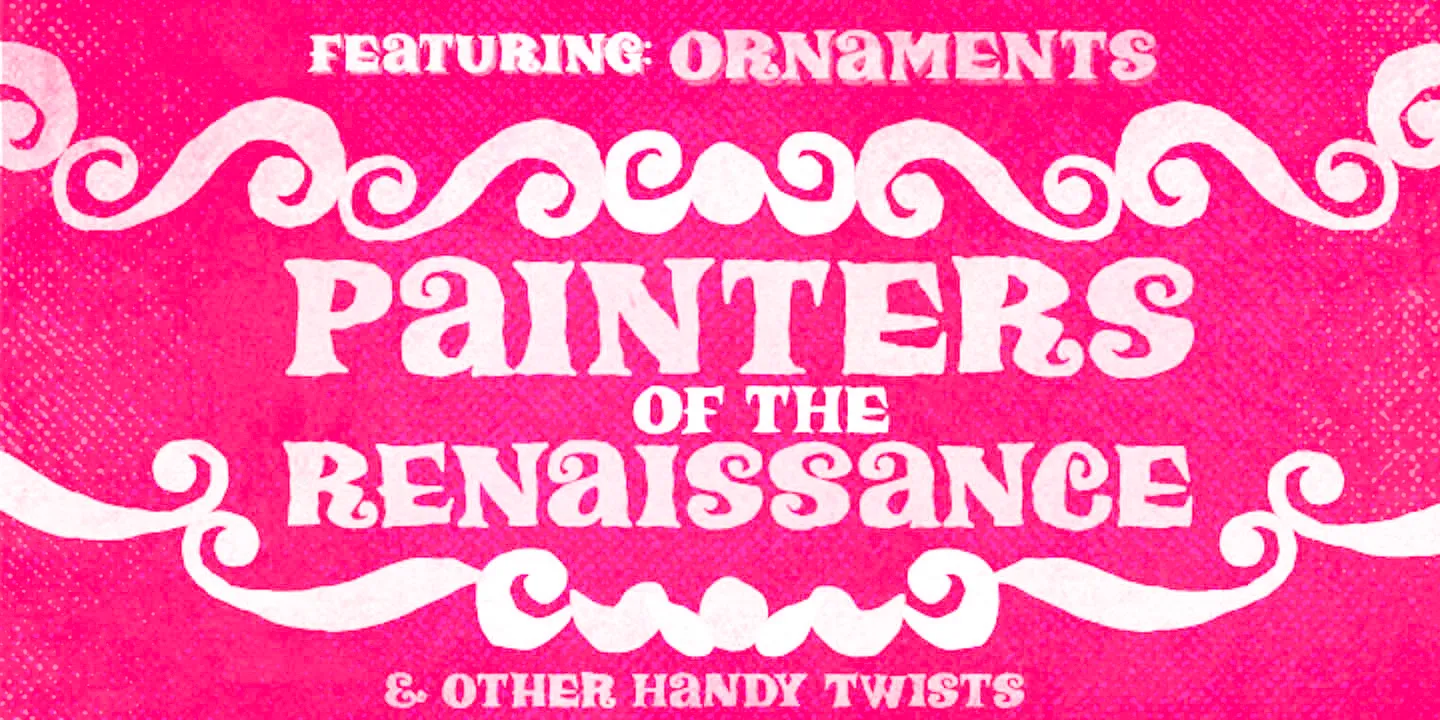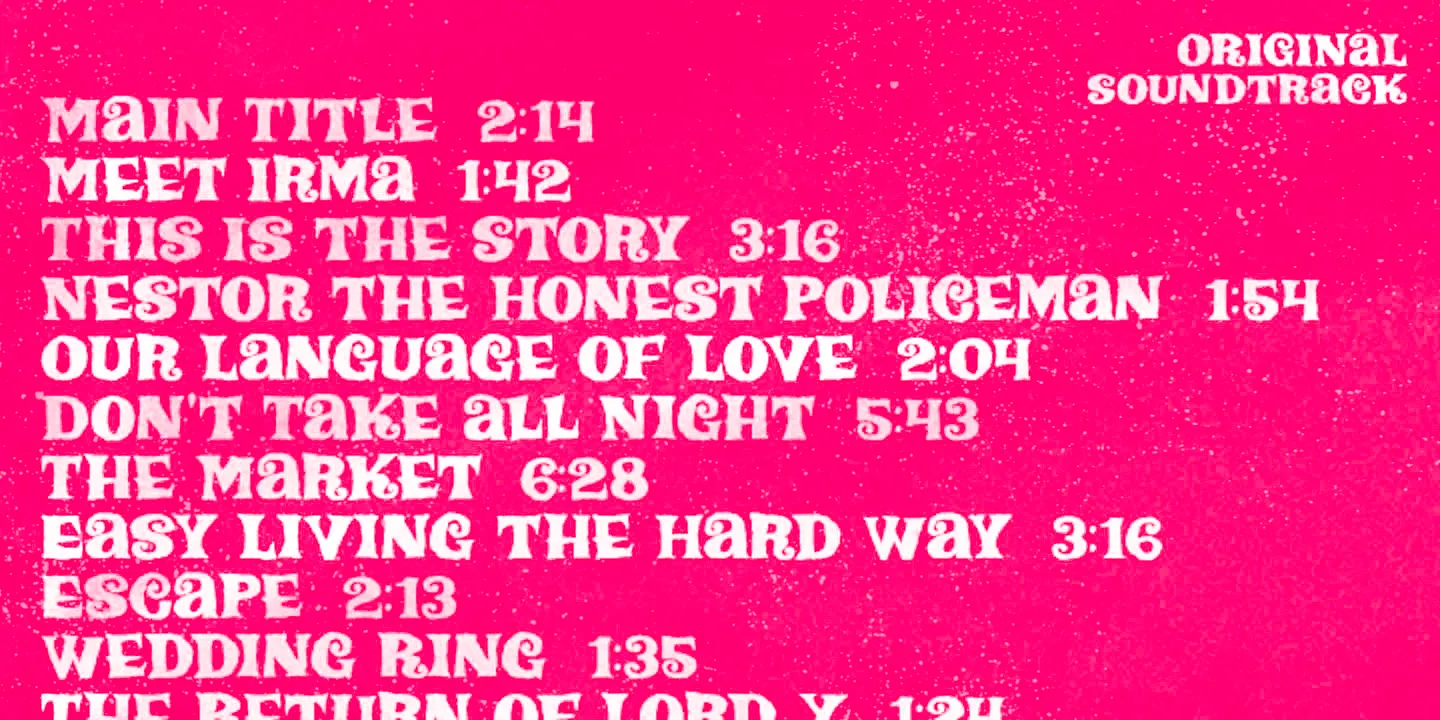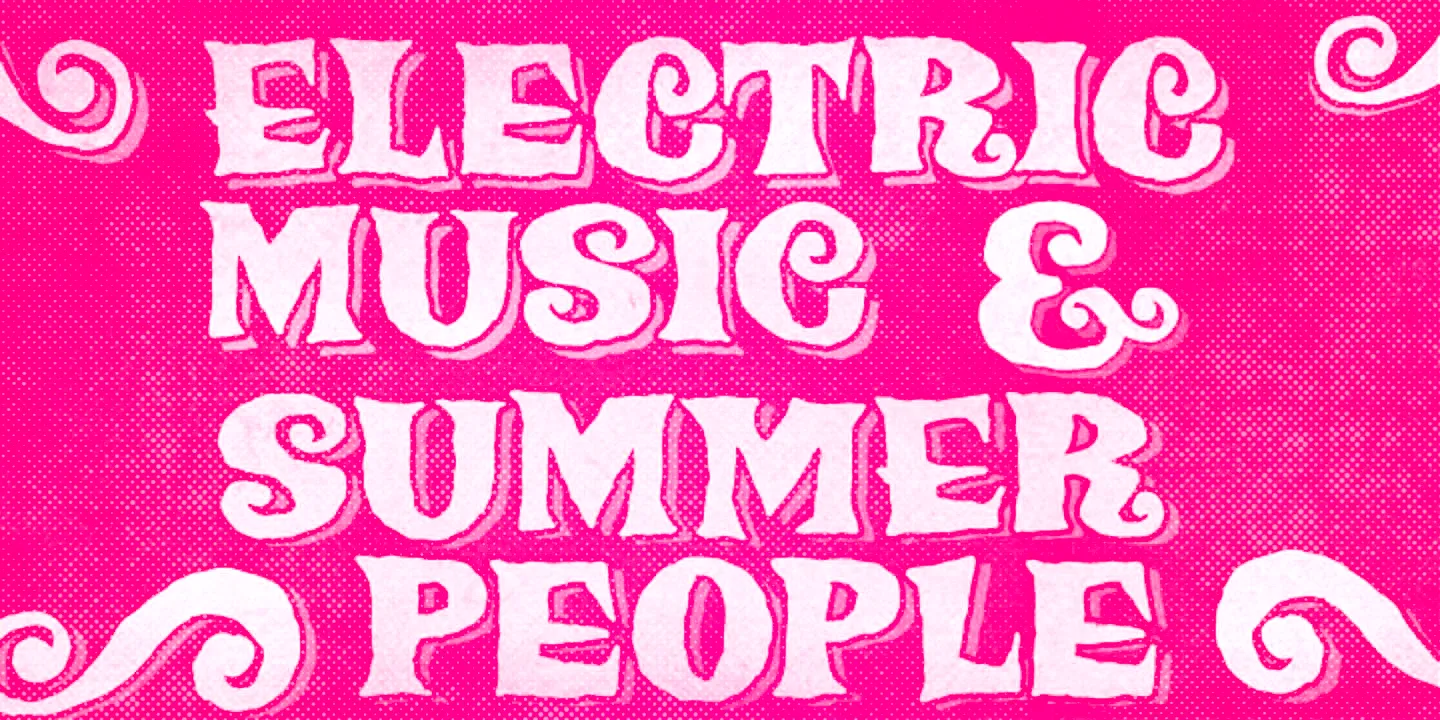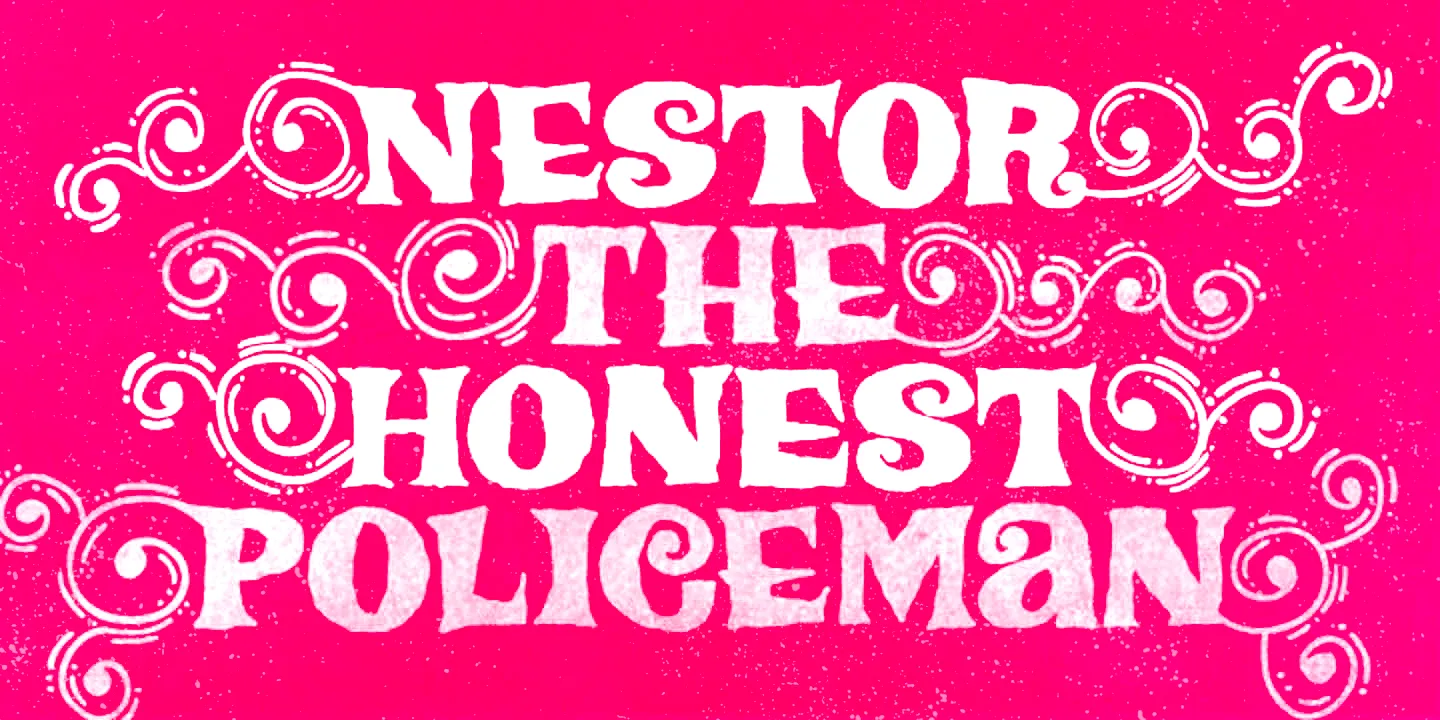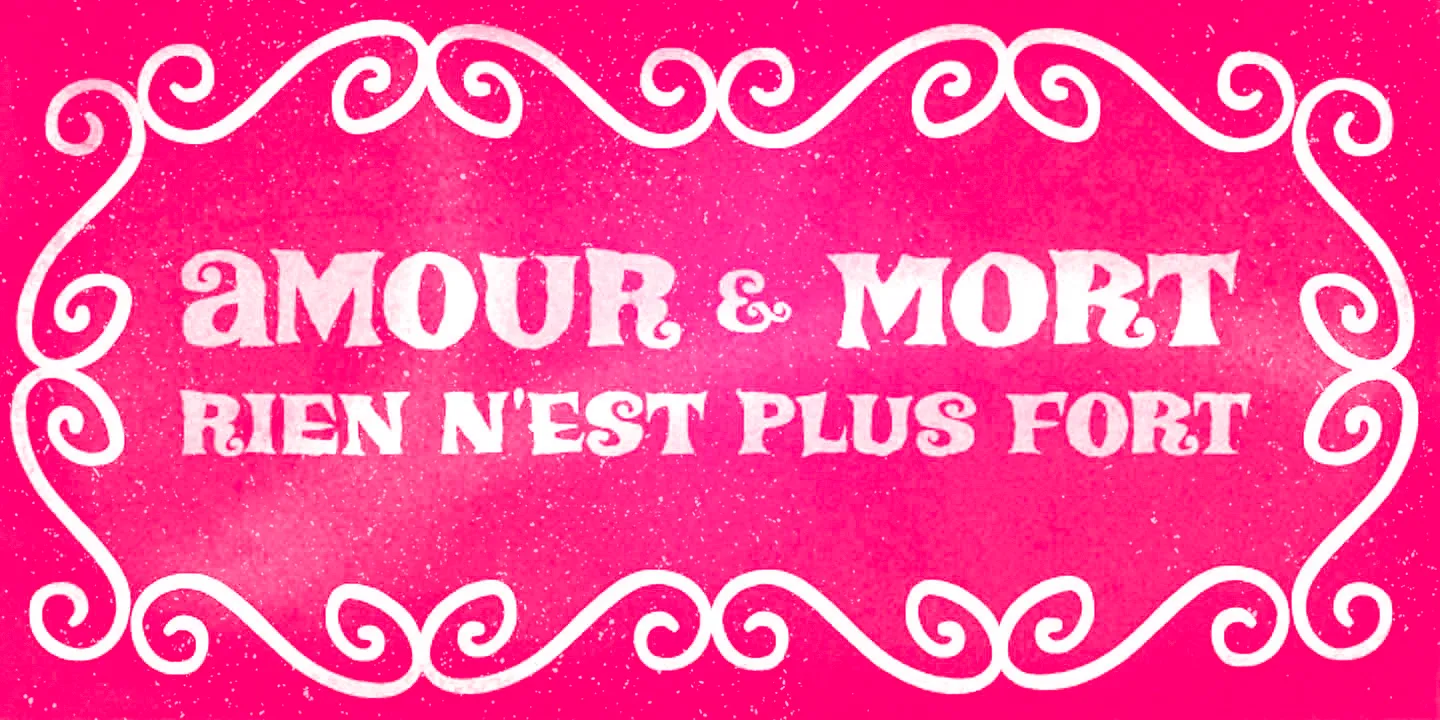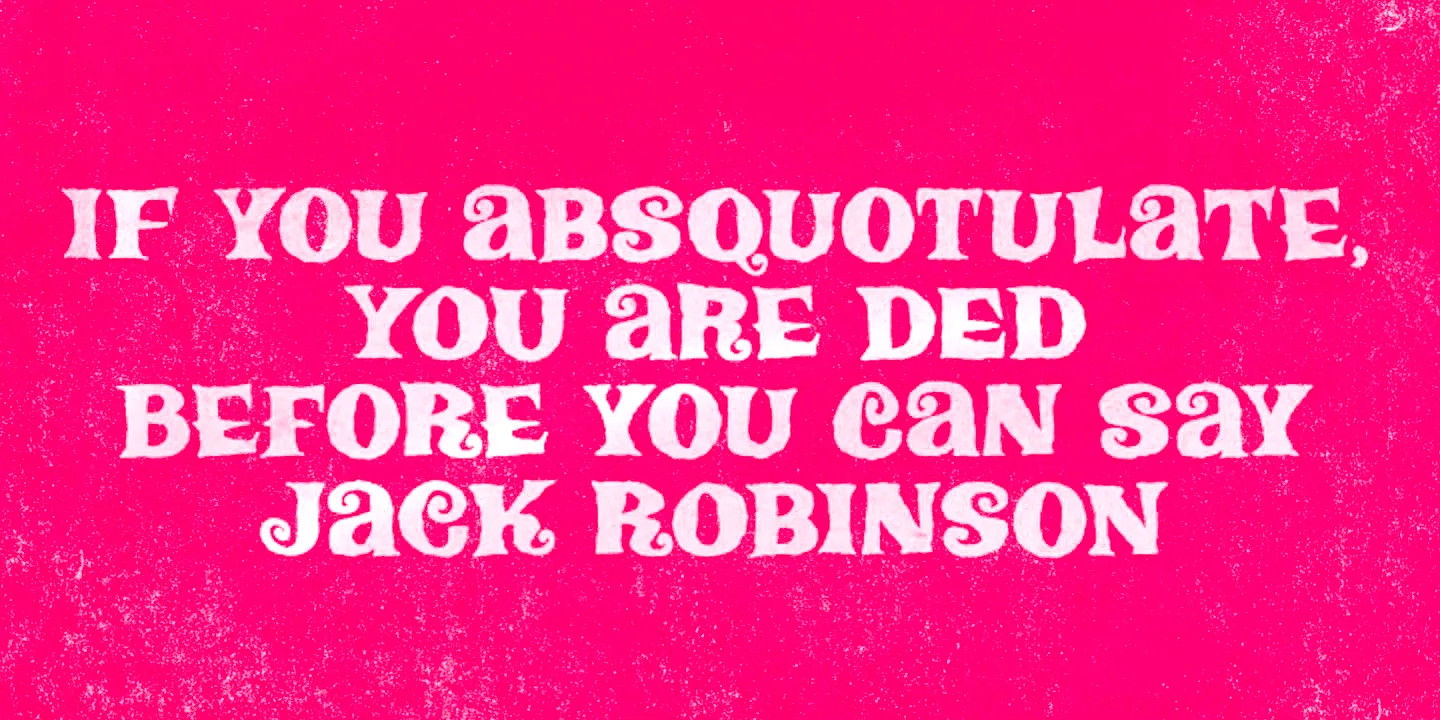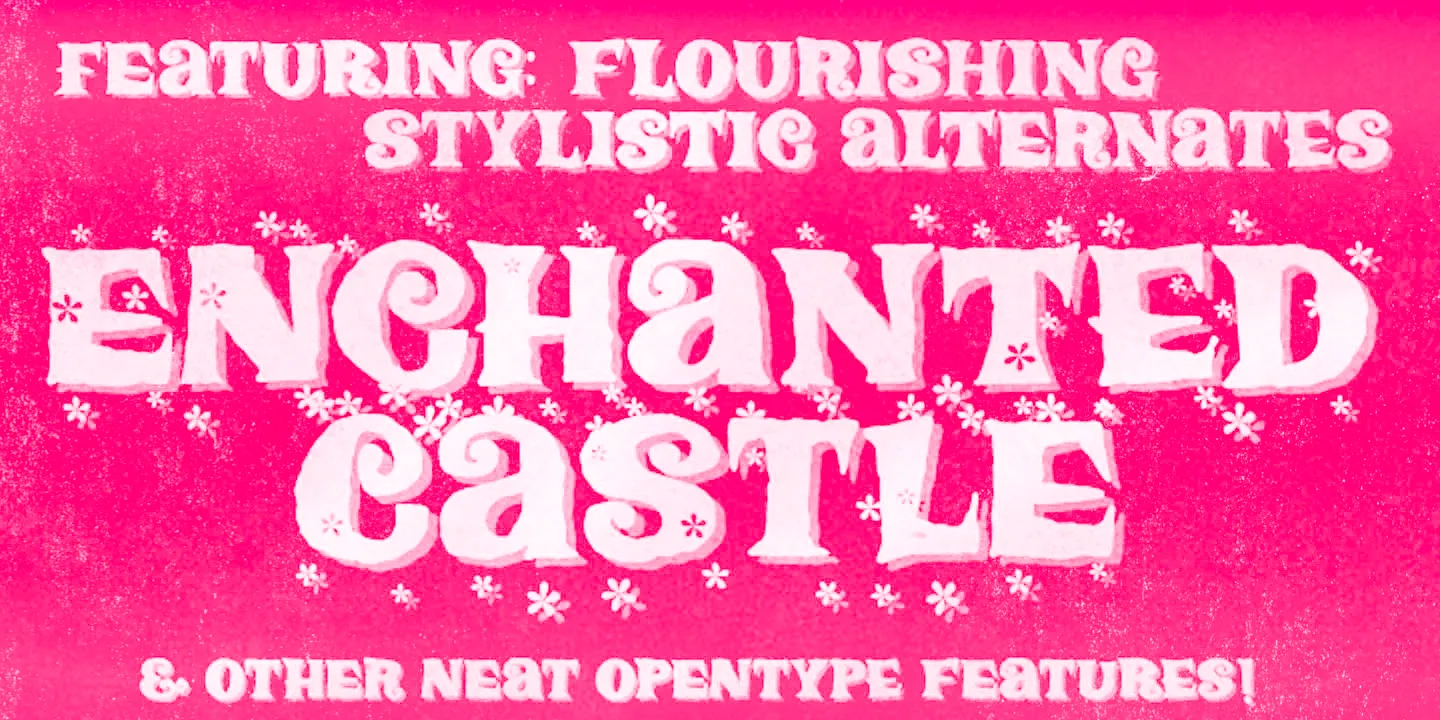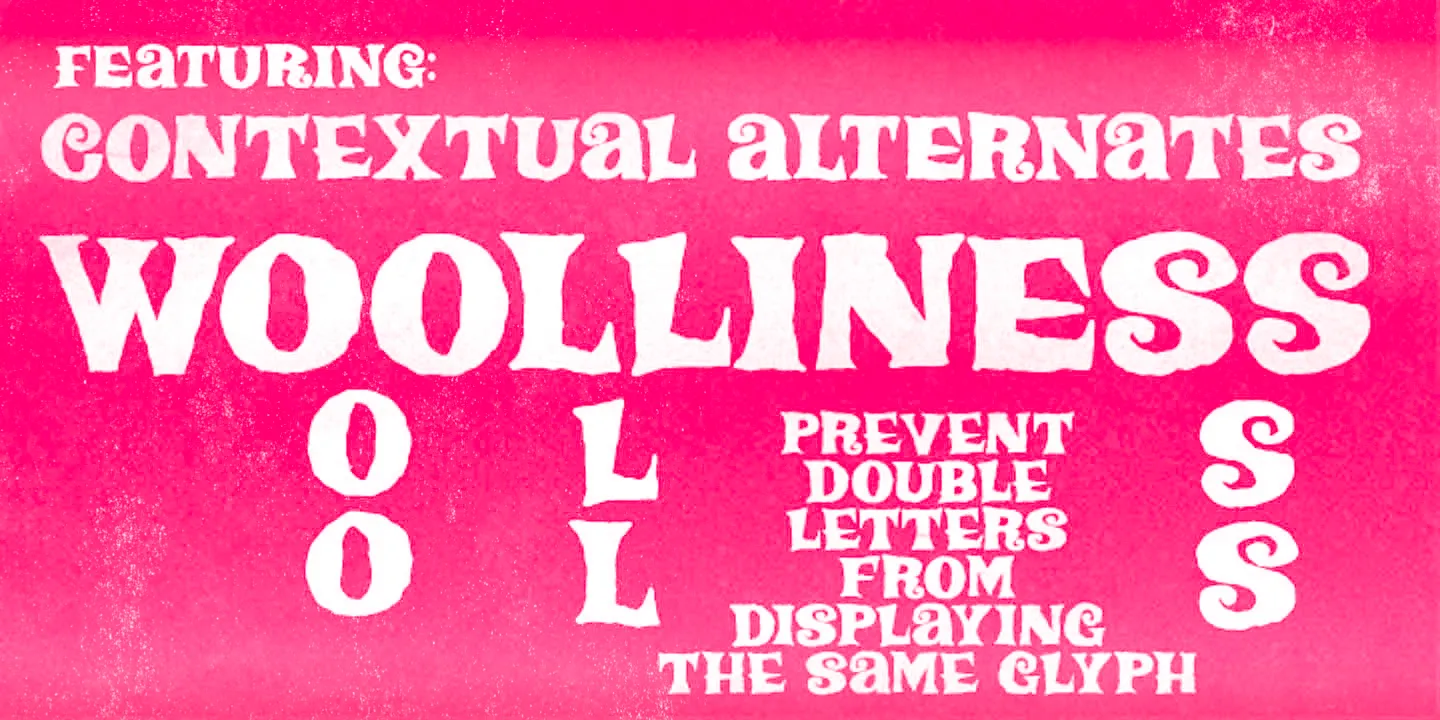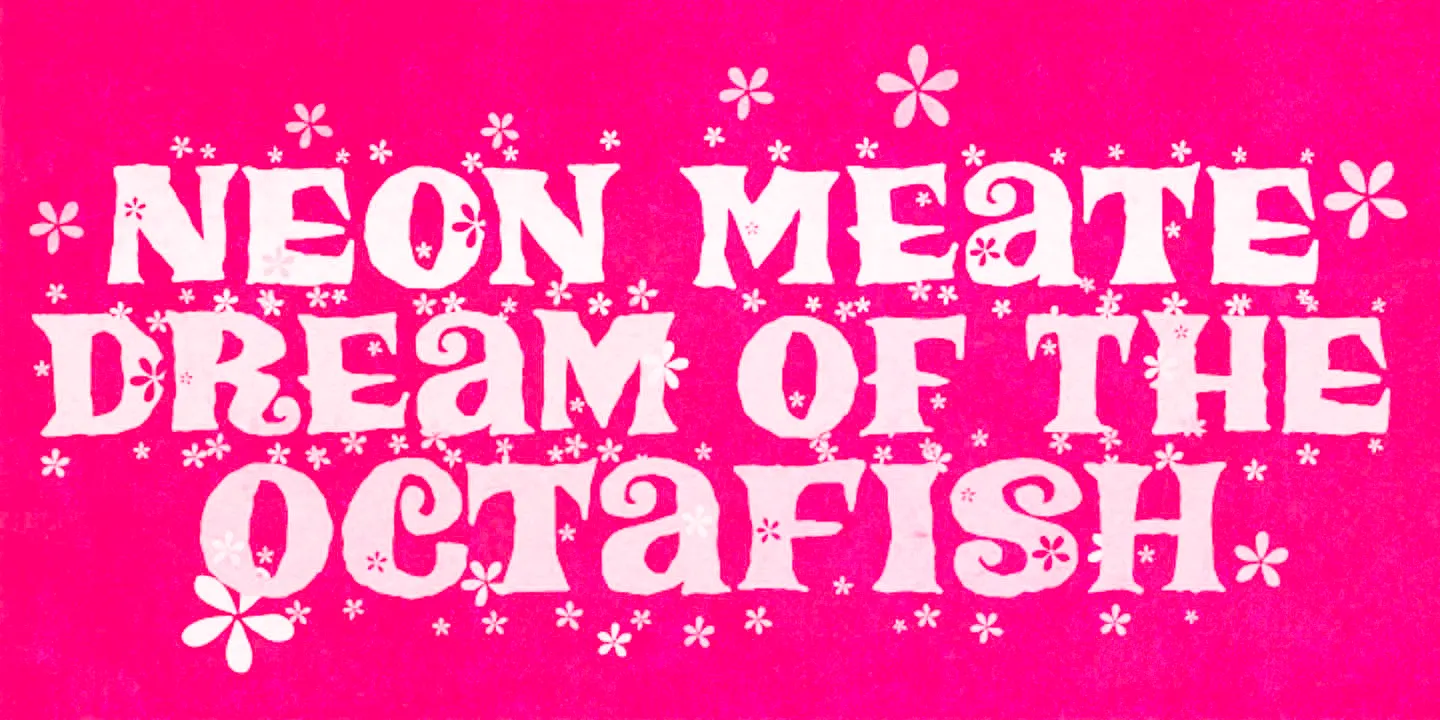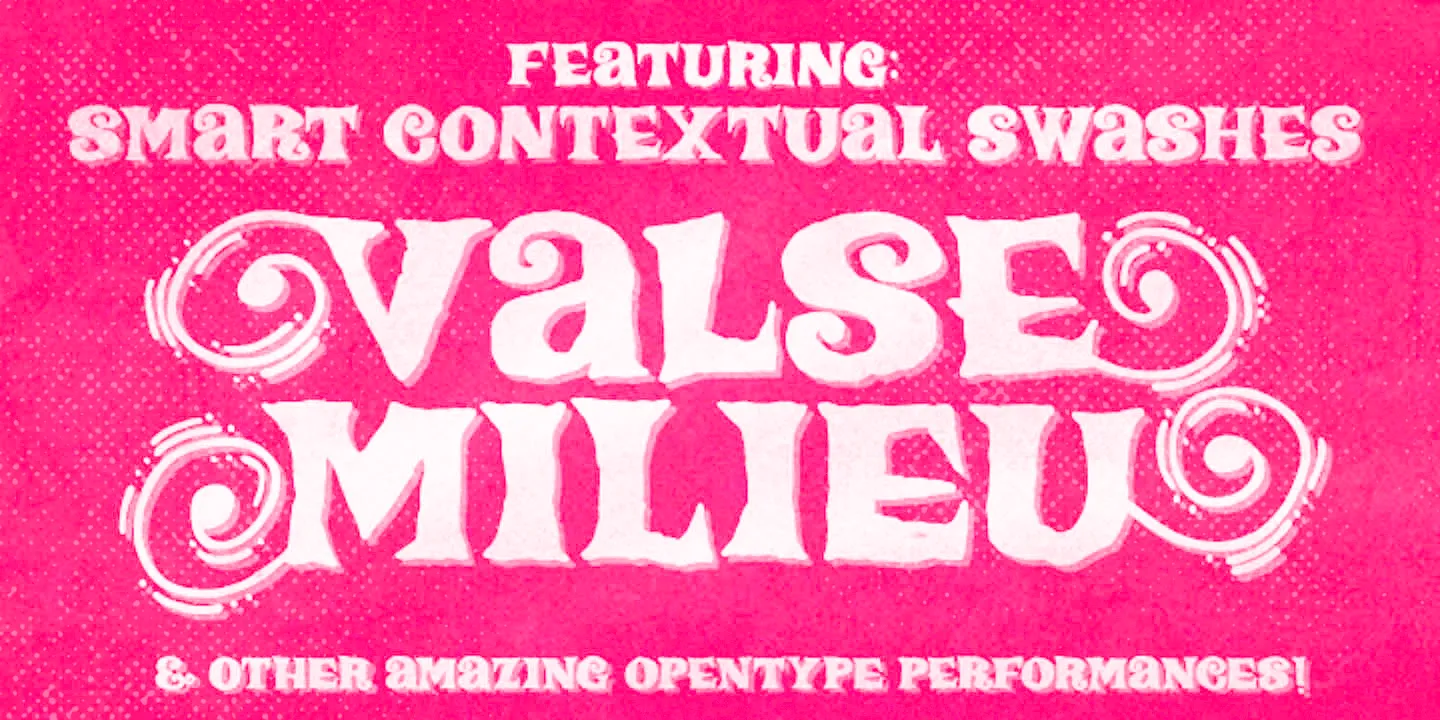
Chez Moustache Font
Chez Moustache
Chez Moustache is a unicase display typeface inspired by the film titles of Irma La Douce. It features two versions of each letter to avoid repetition and keep text playful. Plus! A set of stylistic alternates to add floral flourishes. Whether you’re designing a show poster, boutique label, or anything that needs a theatrical twist, Chez Moustache brings flair with a wink.
• Ornaments
• Swashes